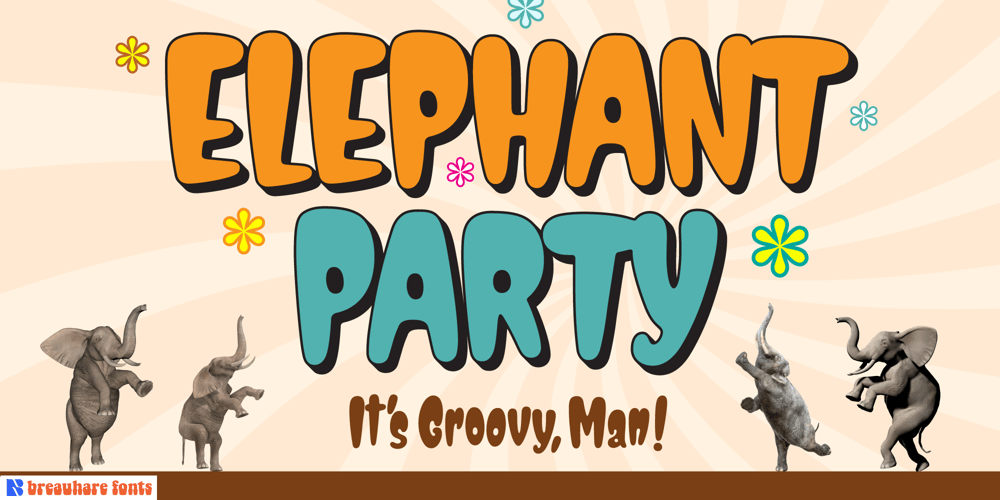
Elephant Party Font Family was designed by Harry Warren and published by Breauhare. Elephant Party contains 1 styles and family package options. Elephant Party playfully dances along its baseline in bold and rounded style. This warm and friendly whimsical design has lots of trunk space and is reminiscent of groovy ‘60s and ‘70s typography where letter spacing was admittedly tight, but cozy. Like snuggling up to a warm fire while toasting marshmallows. Like snuggling under a warm blanket. Like, well, you get the point. Elephant Party is an equitable font that includes a diversity of multilingual support, and will communicate your message with a funky, retro vibe and festive mood. It’ll break out into a happy dance across a wide variety of your design projects ranging from children’s books, t-shirts, posters, logotypes, product packaging, merchandise, branding and beyond. And it’ll groove across a variety of environments from print to digital media. So come on in, join the “Party”, it’s ELEPHANTASTIC! Digitized by John Bomparte.. ***Breauhare’s My Left Hand font makes a cameo appearance on the poster of Chocolola bars.